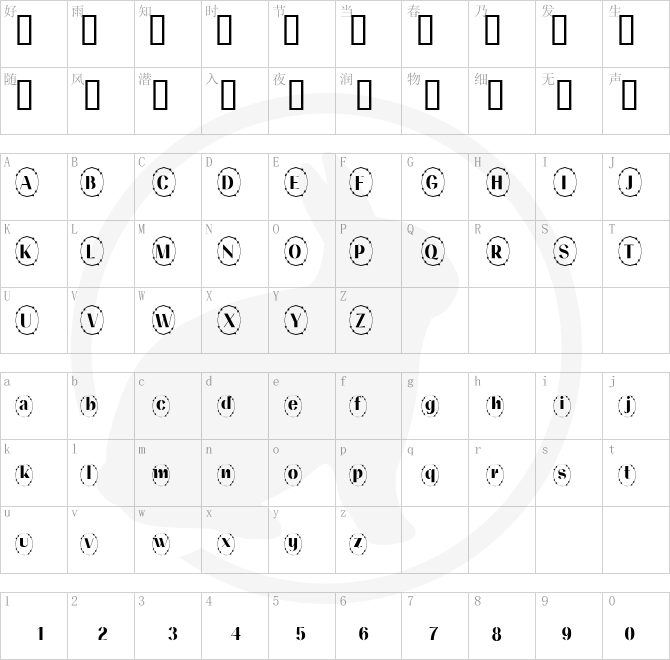
- Font Name:Qintar
Qintar.ttf is a very beautiful artistic font, Qintar.ttf is widely used in the design and printing of various books and pictures,Qintar.ttf has a strong visual impact,Qintar.ttf is a commonly used font in newspapers, magazines and books, and is used in posters, e-commerce Poster design, store design, logo design, font design and other fields.Qintar.